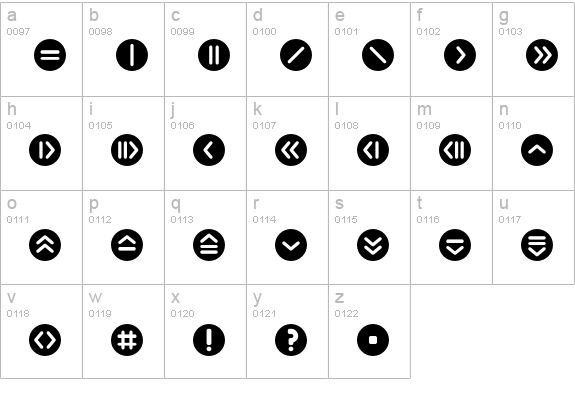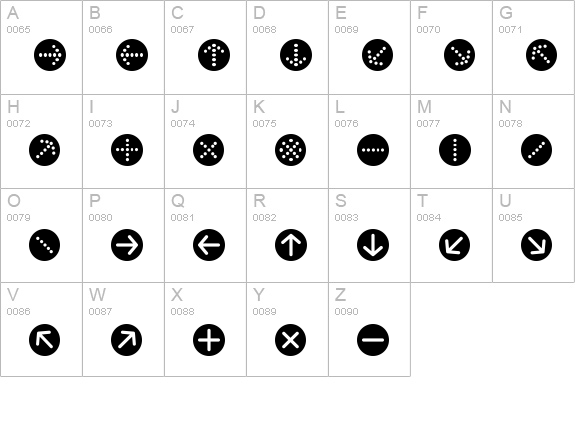
ButtonBonus-CircleNegative Font Details
ButtonBonus-CircleNegative font is a versatile and eye-catching typeface perfect for adding a touch of modernity to your designs. Its unique circular negative space design makes it stand out, while maintaining a clean and professional look. This font is ideal for a wide range of projects, from logos and branding to posters and social media graphics. The best part? ButtonBonus-CircleNegative font is available for free download at FontsMarket.com. Take advantage of this amazing offer and enhance your designs with this striking and contemporary font today!